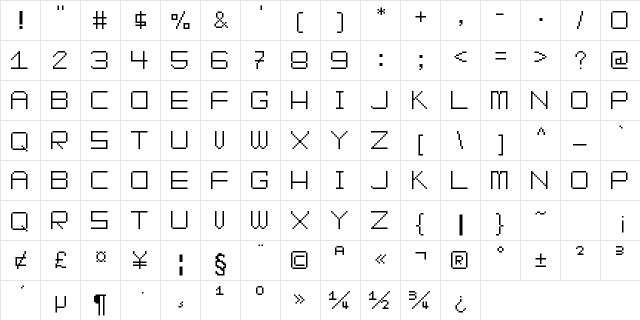
SpikeyBit Medium Font Preview
SpikeyBit Medium
SpikeyBit Medium Font Details
Design Context for SpikeyBit Typeface
SpikeyBit offers clean, dependable letterforms without strong stylistic allegiance, making it a practical choice for designers who need flexibility.